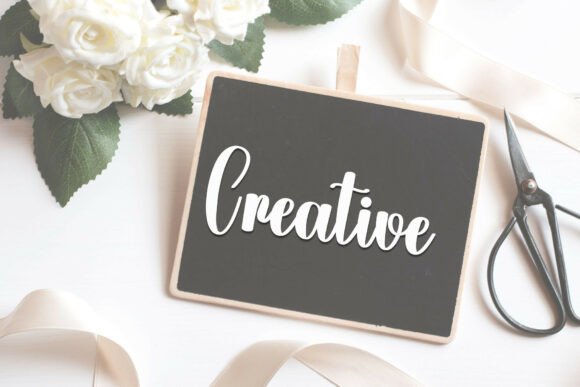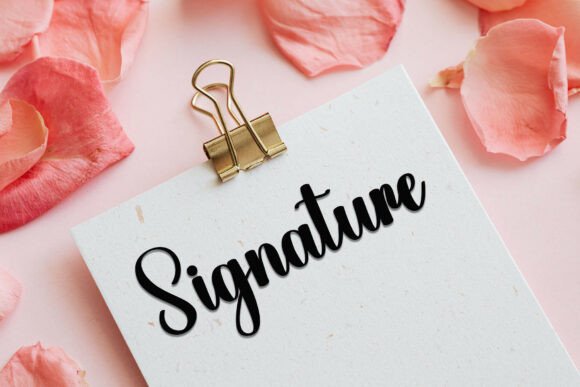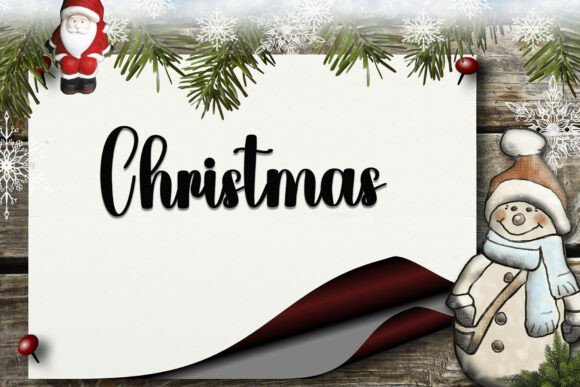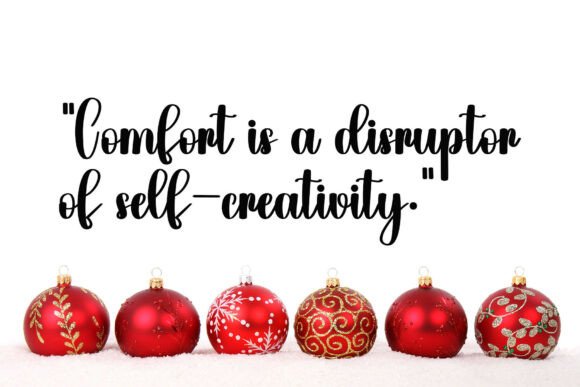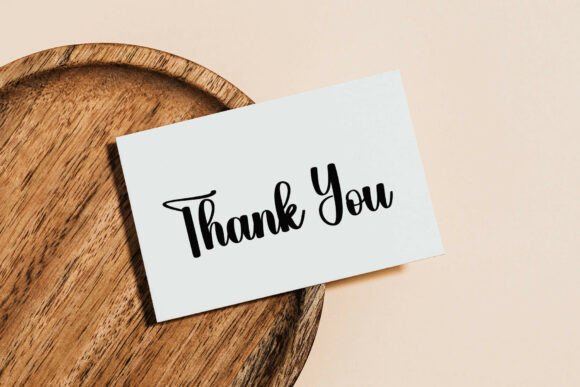
Introducing Halloween Font: A Sweet and Cursive Handwritten Delight
Are you looking for a font that can add a touch of elegance and whimsy to your designs? Look no further than Halloween Font, a sweet and cursive handwritten font that’s perfect for a variety of creative projects. In this article, we’ll explore the features and benefits of Halloween Font, and show you how to make the most of this beautiful font in your designs.
What is Halloween Font?
Halloween Font is a carefully crafted handwritten font that’s designed to bring a touch of joy and romance to your designs. With its gentle, cursive script, this font is perfect for adding a personal and elegant touch to a wide range of projects, from branding and logos to wedding invitations and greeting cards.
Key Features of Halloween Font
- Sweet and Cursive Handwritten Style: Halloween Font features a beautiful, handwritten script that’s both elegant and casual.
- Versatile and Adaptable: This font can be used on a variety of design ideas, from logos and branding to wedding things, greeting cards, and marketing promotions.
- Easy to Read and Write: The clear and flowing script of Halloween Font makes it easy to read and write, even at small sizes.
- Fancy and Elegant but Still Casual: This font strikes the perfect balance between elegance and casualness, making it perfect for designers who want to add a touch of sophistication to their designs without going over the top.
Use Cases for Halloween Font
So, what can you use Halloween Font for? The possibilities are endless! Here are a few ideas to get you started:
- Branding and Logos: Use Halloween Font to create a unique and memorable logo for your business or brand.
- Wedding Invitations and Things: Add a touch of romance and elegance to your wedding invitations, save-the-dates, and other wedding stationery.
- Greeting Cards: Use Halloween Font to create beautiful and heartfelt greeting cards for special occasions like birthdays, anniversaries, and holidays.
- Fashion and Lookbook: Add a touch of style and sophistication to your fashion designs, lookbooks, and marketing promotions.
- Marketing Promotions: Use Halloween Font to create eye-catching and effective marketing promotions, including flyers, brochures, and social media graphics.
Tips for Using Halloween Font
Here are a few tips for getting the most out of Halloween Font:
- Experiment with Different Sizes and Colors: Don’t be afraid to try out different sizes and colors of Halloween Font to see what works best for your design.
- Pair with Other Fonts: Halloween Font pairs well with a variety of other fonts, so don’t be afraid to experiment with different combinations.
- Use on a Variety of Backgrounds: Halloween Font can be used on a variety of backgrounds, from solid colors to patterns and textures.
In conclusion, Halloween Font is a beautiful and versatile handwritten font that’s perfect for designers and crafters who want to add a touch of elegance and whimsy to their designs. With its sweet and cursive script, this font is perfect for a wide range of creative projects, from branding and logos to wedding invitations and greeting cards. So why not give Halloween Font a try today and see what amazing designs you can create?